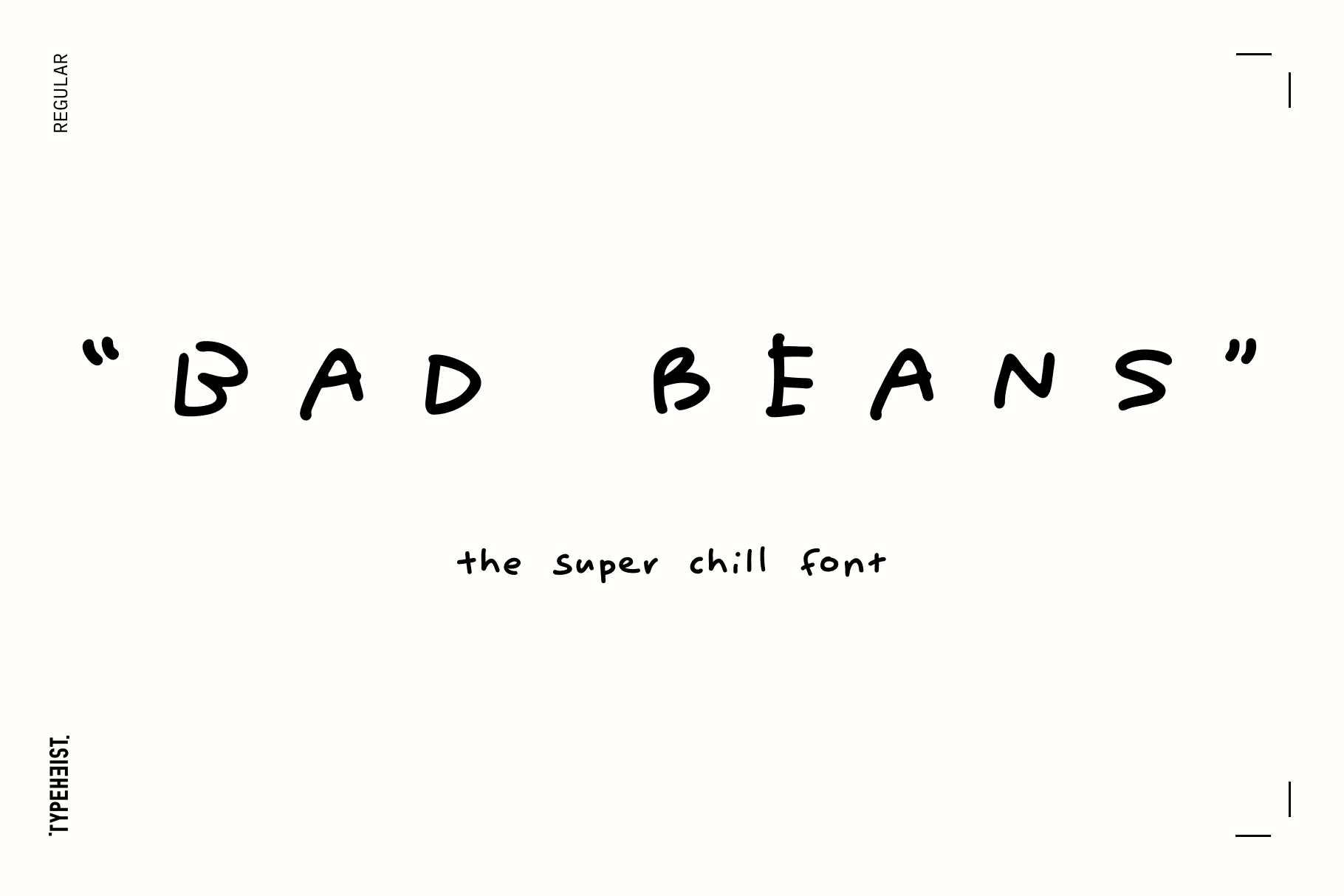
The rebellion against all things proper and perfect.
Bad Beans is a messy little throwback to simpler times. Just you, a marker and something to say. No polish, no pressure, no trying too hard.
Inspired by scribbled notes, skatepark doodles, old CDs covered in handwriting and the kind of lettering that accidentally ends up cooler than anything over-designed, Bad Beans leans fully into its imperfections. Uneven lines, wonky shapes and awkward charm are all part of the deal.
Bad Beans includes 484 glyphs and multilingual support for over 100 languages. It also features two sets of contextual alternates that automatically cycle through different letter variations as you type (no obvious repeated characters), creating a super natural handwritten flow.
Also included are 29 matching sketches, accessible via typing keyboard shortcuts.
In a world slowly filling up with polished content and copy-paste perfection, Bad Beans feels comfortably human. Casual, expressive and a little rebellious, like handwriting before handwriting became a “style”.
There’s something refreshing about handwriting that hasn’t been overthought.
Loose, messy and full of personality, this font captures the feeling of scribbling something down with a chunky marker before the idea disappears. Uneven strokes, awkward shapes and rough little details give it a natural, human feel that’s impossible to fake.
It’s playful, nostalgic and just the right amount of chaotic.